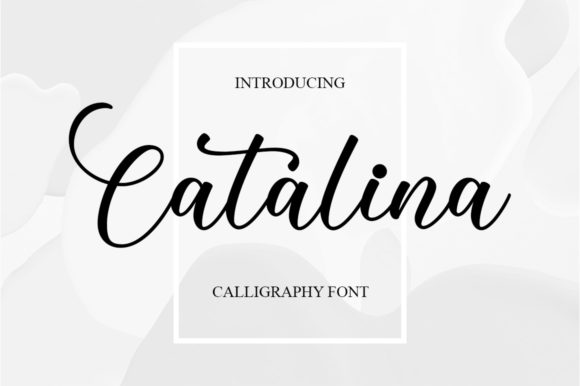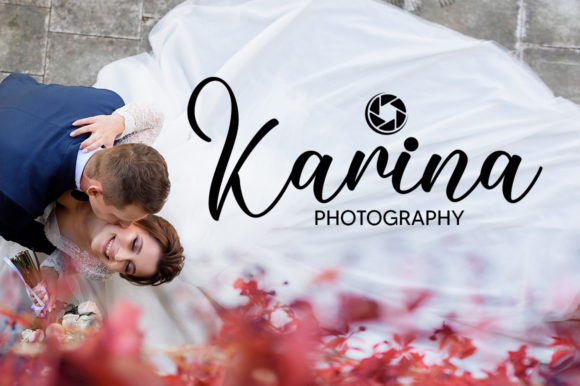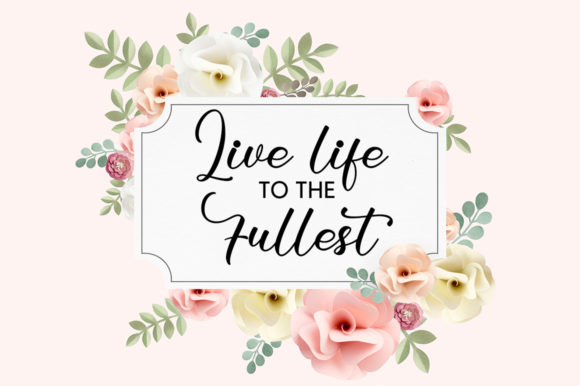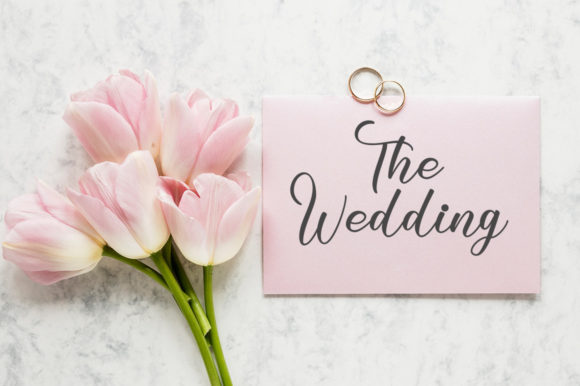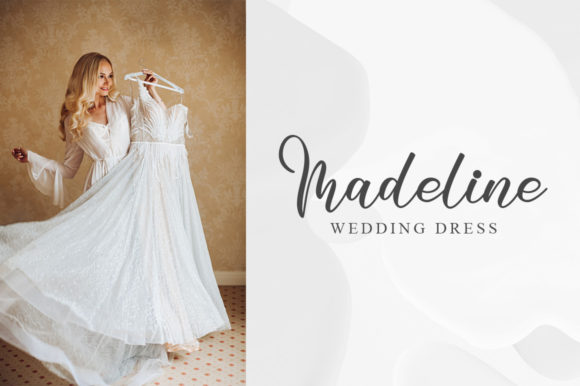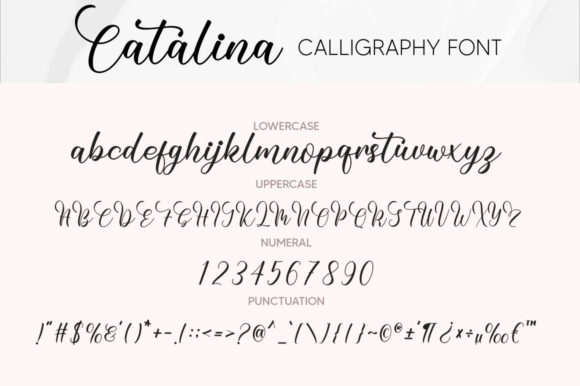
Catalina Font
About Catalina Font
Catalina, a timeless handwritten font, effortlessly blends loveliness with a touch of sophistication. This typeface emerges as the optimal choice for crafting eye-catching logos, establishing memorable branding, and giving life to inspiring quotes.
The charm of Catalina lies in its simplicity and elegance. Each letter is carefully crafted to convey a sense of timelessness, making it a versatile tool in the hands of designers seeking to create lasting visual impressions. The flowing strokes and delicate curves contribute to Catalina’s ability to add a touch of sophistication to your designs.
As you embark on the journey of logo creation, Catalina proves to be a steadfast companion. Its handwritten style brings a unique and personal touch to your brand identity, fostering a connection with your audience. The versatility of Catalina extends seamlessly to the realm of branding, where its understated elegance can elevate your business’s visual representation.
Quotes, with their inherent power to inspire and evoke emotions, find a perfect companion in Catalina. Its timeless appeal enhances the impact of words, turning ordinary phrases into visual statements. Whether you’re designing for print or digital media, Catalina’s adaptability ensures that your quotes resonate with an enduring charm.
In a world saturated with design choices, Catalina stands out as a font that transcends trends. It is not just a typeface; it is a design ally that speaks to the heart of simplicity and elegance. So, whether you’re crafting a logo that defines your brand or breathing life into memorable quotes, Catalina is poised to be the secret ingredient that transforms your designs into timeless works of art.